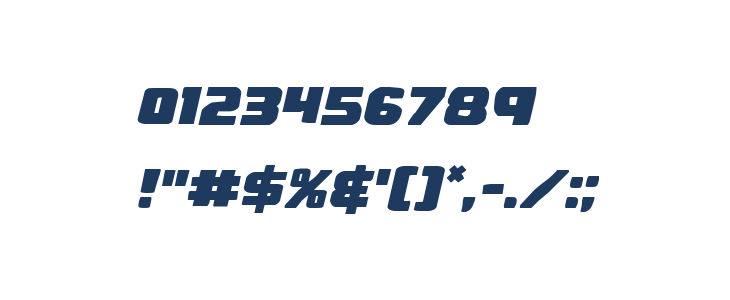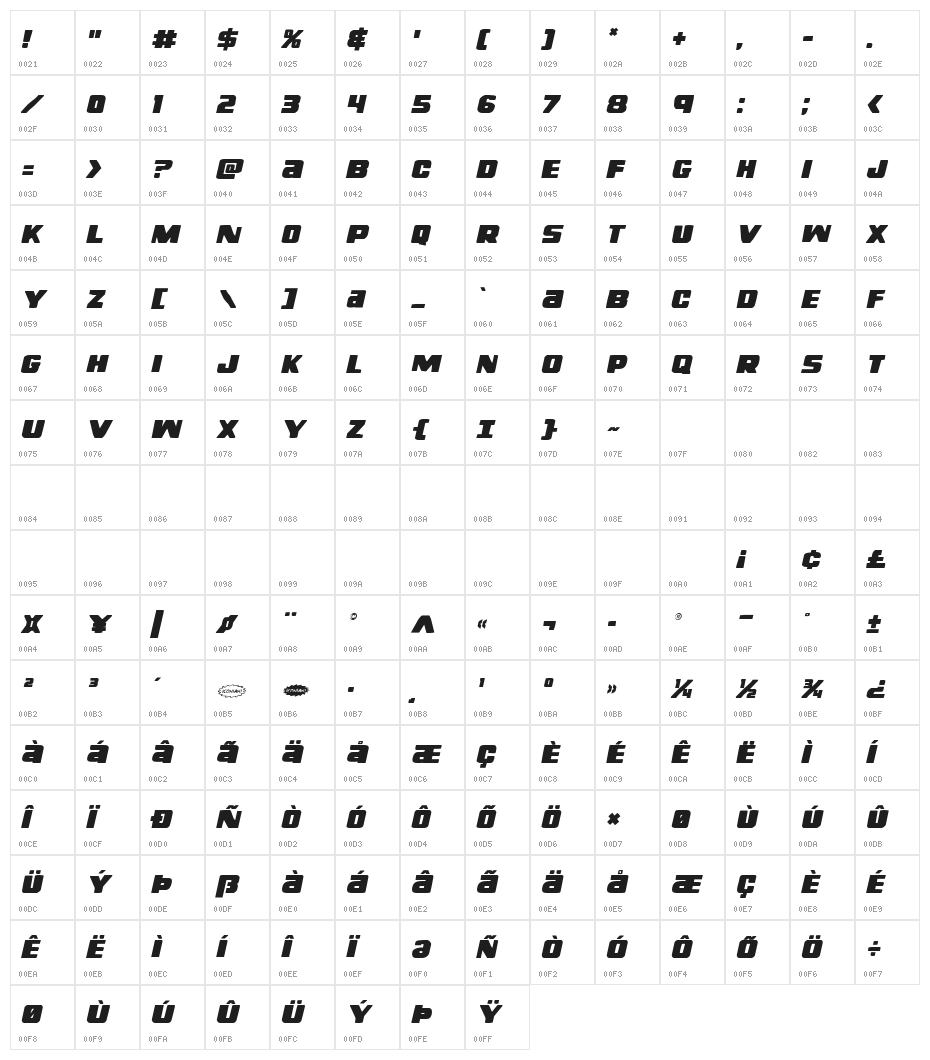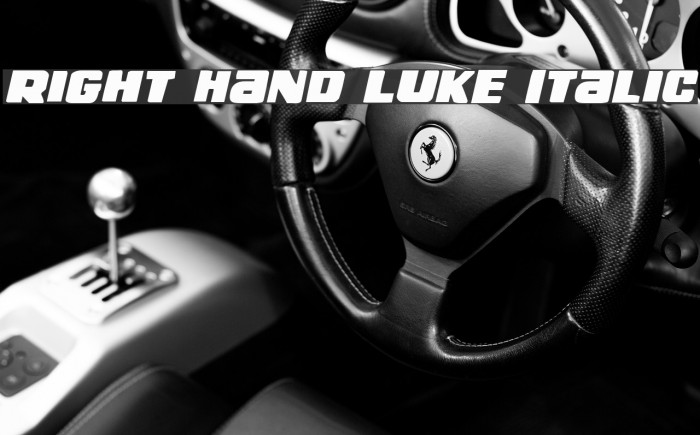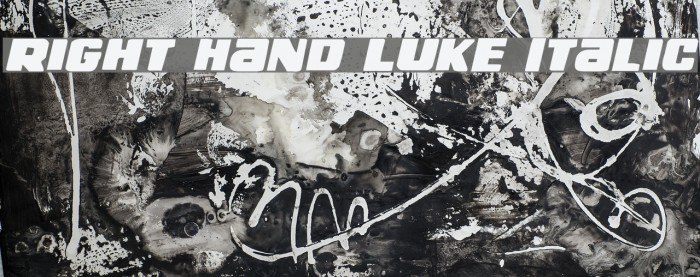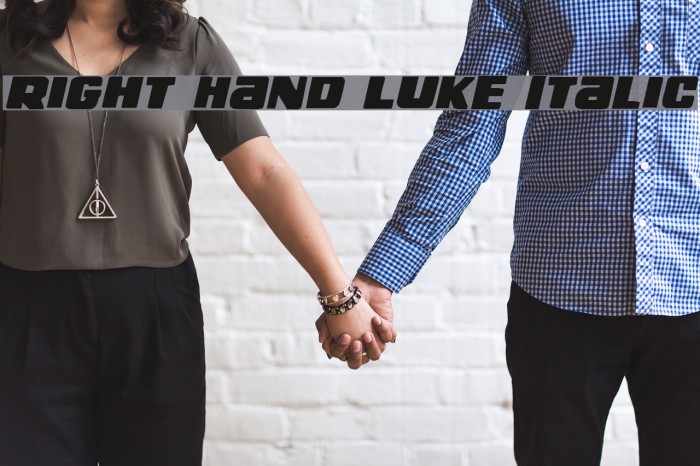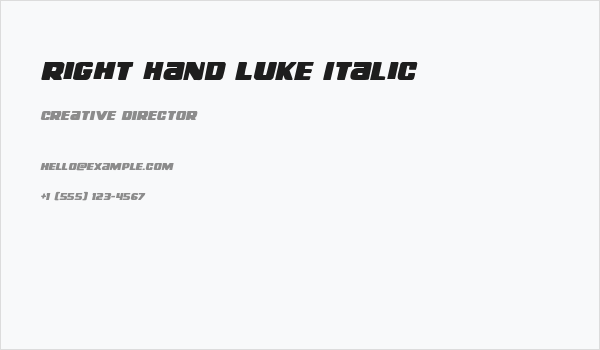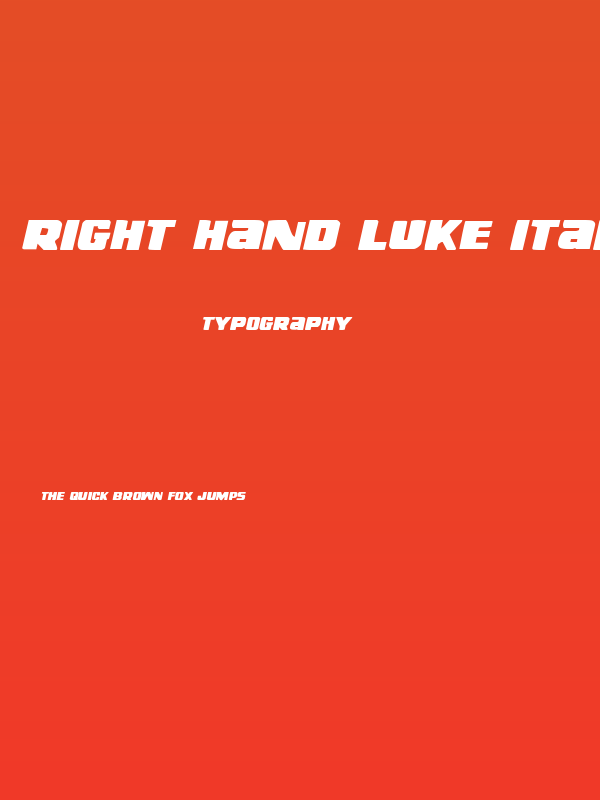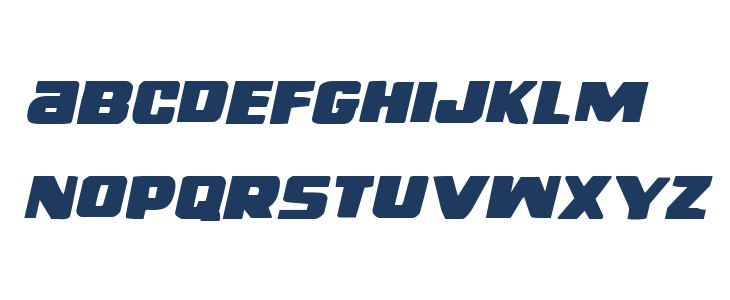
Right Hand Luke Italic Font
Right Hand Luke Italic Description
This font features a bold and dynamic style with a strong italic slant, giving it a sense of motion and energy. The characters are robust and slightly condensed, which enhances their impactful appearance. The strokes are thick and consistent, providing a medium contrast that ensures readability while maintaining a striking presence. The overall design is modern and assertive, making it suitable for attention-grabbing applications. The uppercase and lowercase letters are well-balanced, and the numerals are clear and bold. Special characters are included, maintaining the font's cohesive style.
| Proposed Projects | Ideal for sports branding, dynamic posters, and modern advertising campaigns. |